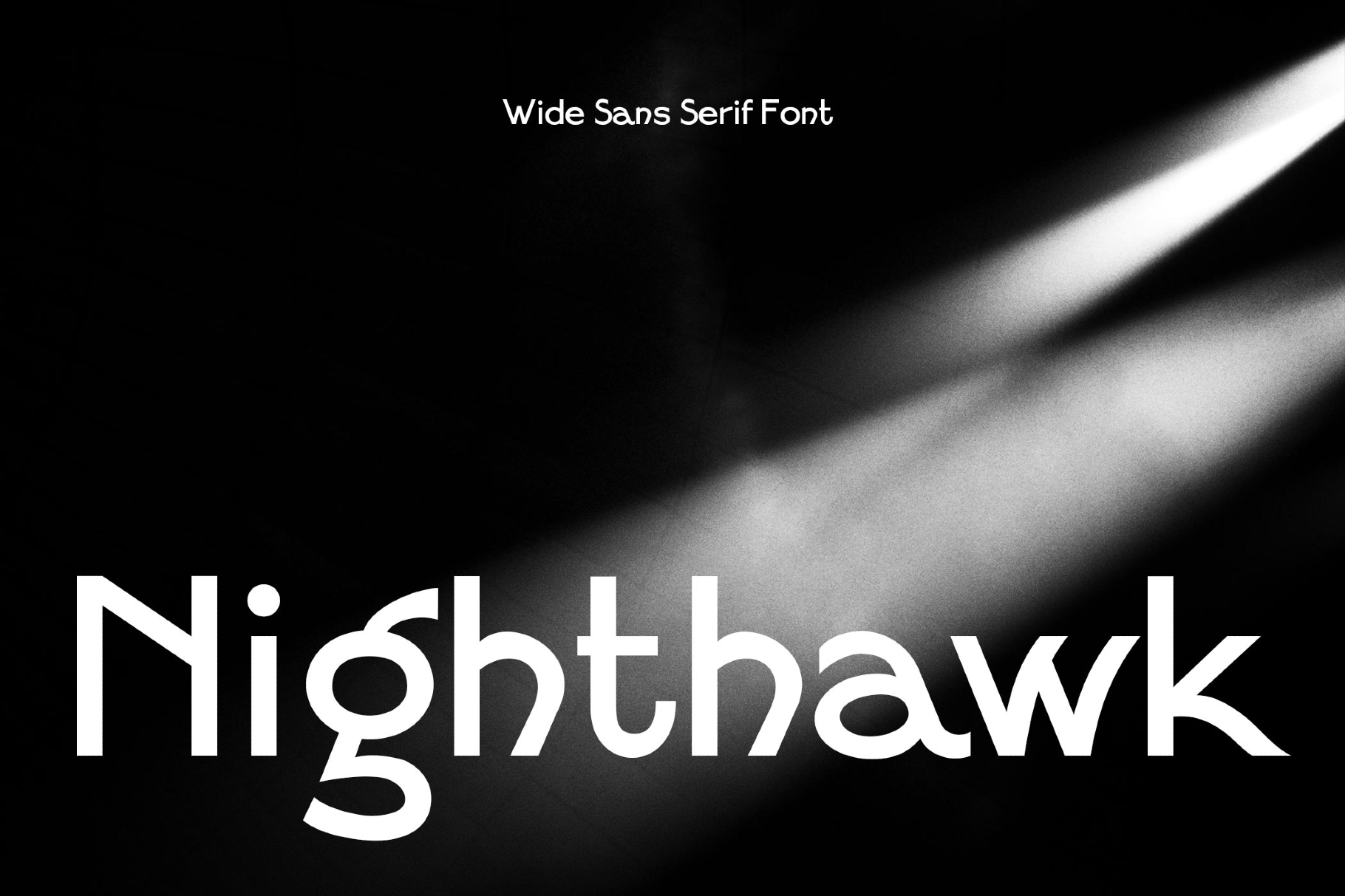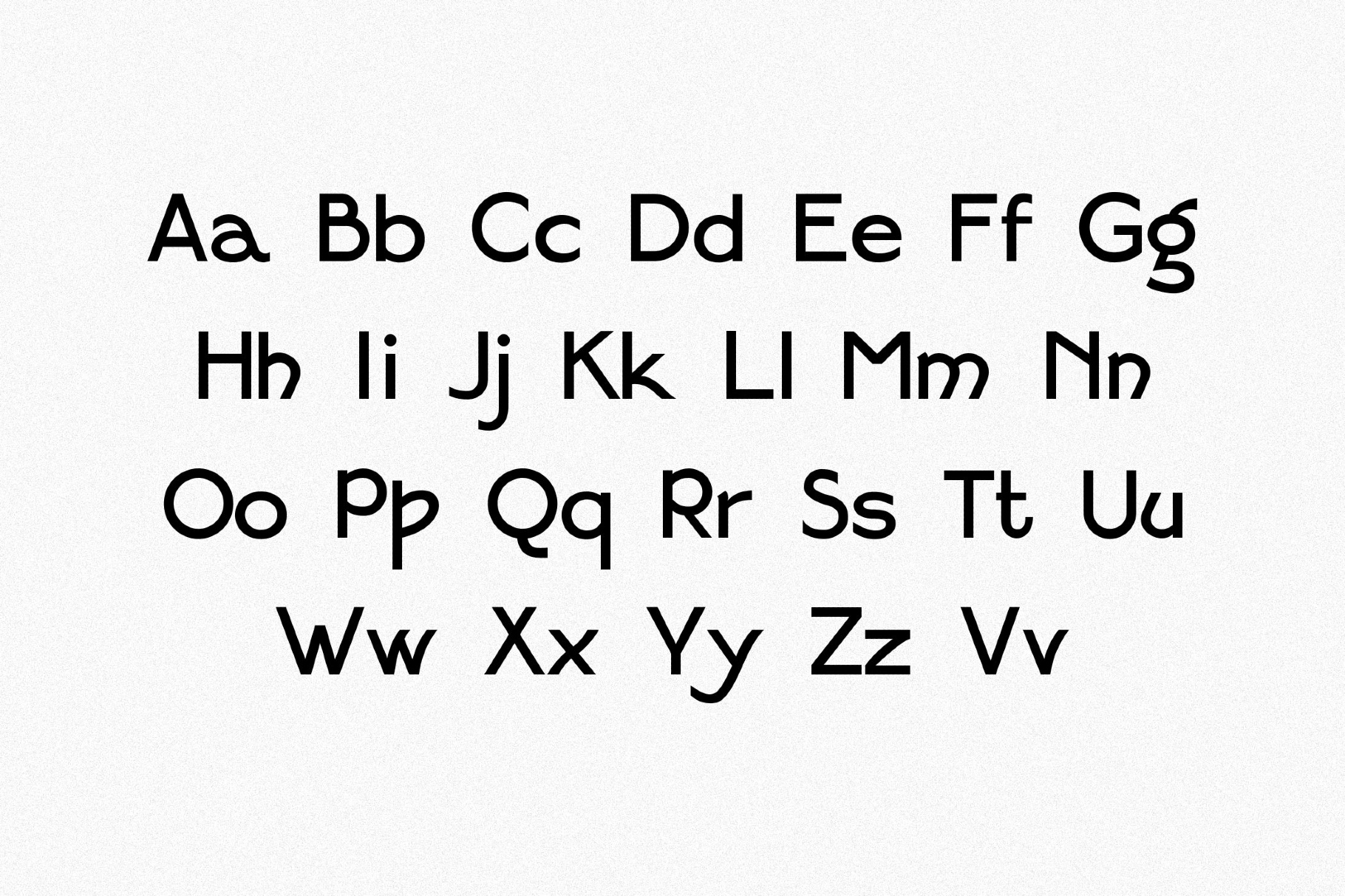
Nighthawk Font
Nighthawk
Nighthawk is a bold, wide sans-serif font with rounded bowls and crisp cuts like something between a noir movie title and an indie magazine masthead. Use it for magazine mastheads, poster headlines, brand wordmarks, packaging labels, menu titles, book covers, web hero graphics, storefront signage, and social media artwork.